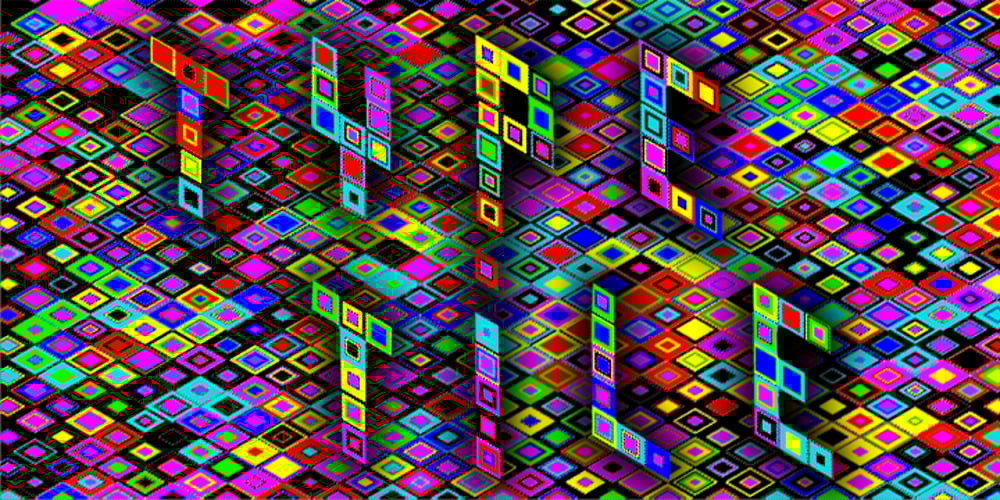
Type Tile Font Family was designed by Konstantin Boldovskiy and published by Konst.ru. Type Tile contains 10 styles and family package options. The fastest and easiest way to create original images. It is necessary to take any text and use it with Type Tile. Create pictures, patterns and backgrounds from real texts. Font can be used in various encodings and you can type texts in many languages. Type Tile supports Central European languages that use Latin script, (Polish, Czech, Slovak, Hungarian, Slovene, Serbian, Croatian, Romanian and Albanian), Cyrillic alphabets, Western languages, Greek, Turkish, Hebrew, Arabic, Baltic languages, Vietnamese, Thai and Japanese. You can make the background from the original text for the page on which can print the translated text. This symbiosis can create a feeling of presence in the original text. Decorate the packaging in which the text is written in the form of ornament. Several layers of the texts with Type Tile shows an incredible pictures. Use a pair of letters can give a regular pattern. Type Tile provides endless and fantastic opportunities for design on any surfaces and for different purposes in publish, fashion, textiles, industry, animation, Internet and so on.